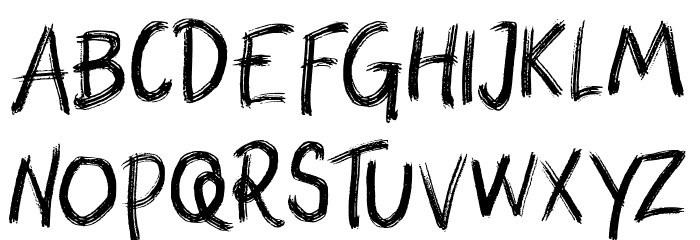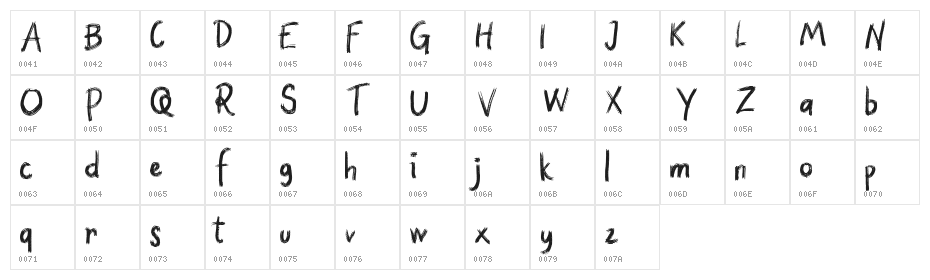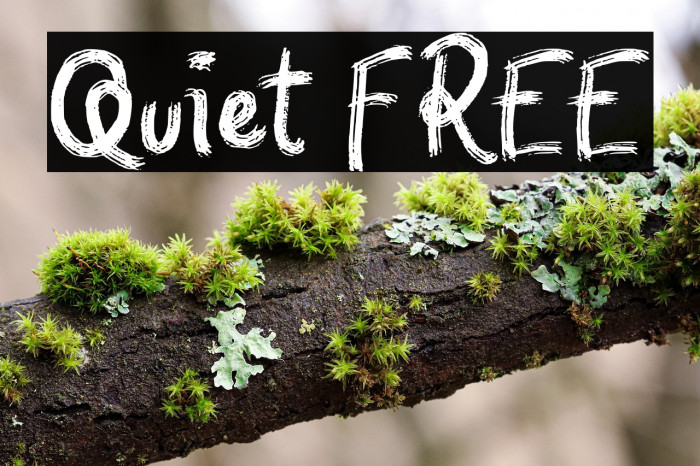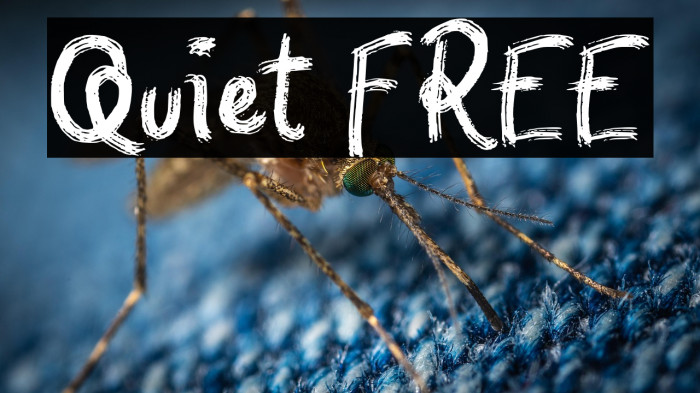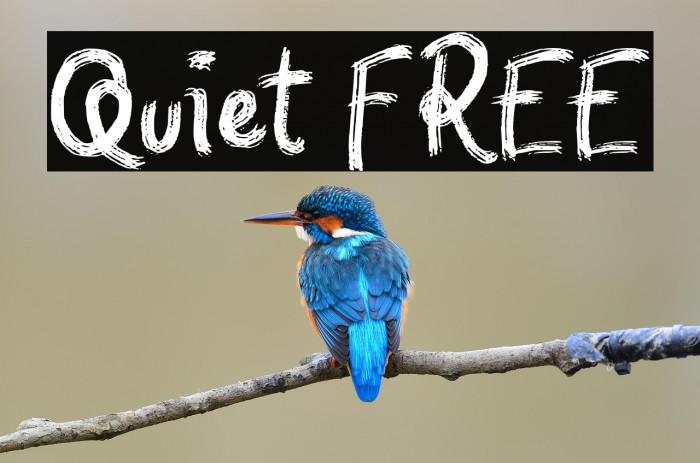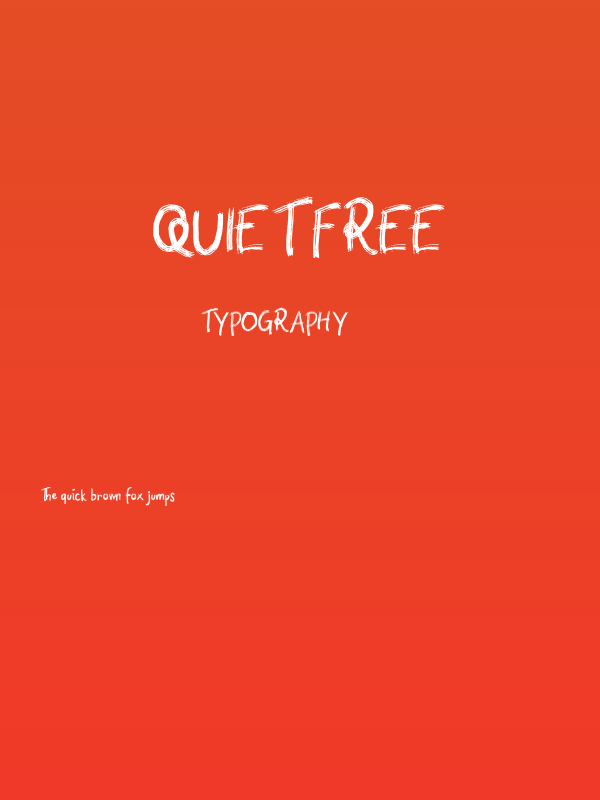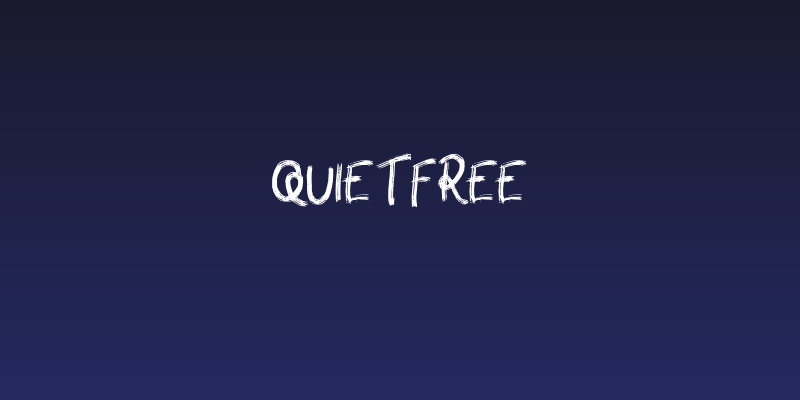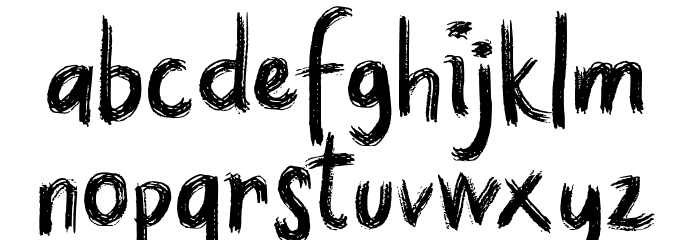
Quiet FREE Font
Quiet FREE Description
This font features a bold, expressive style with a hand-drawn appearance. The strokes are uneven and textured, giving it a dynamic and energetic feel. The uppercase and lowercase letters maintain a consistent style, with a slightly rough and sketchy look that adds character. The font includes a full set of uppercase and lowercase letters, numbers, and a selection of special characters. Its unique style makes it stand out, perfect for projects that require a personal touch or an artistic flair.
| Proposed Projects | Ideal for artistic projects, posters, branding, and any design that requires a personal, handcrafted touch. |